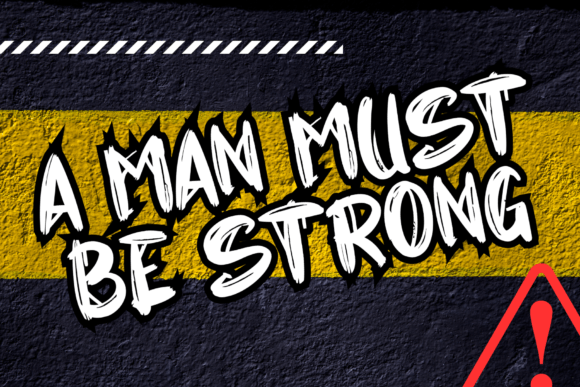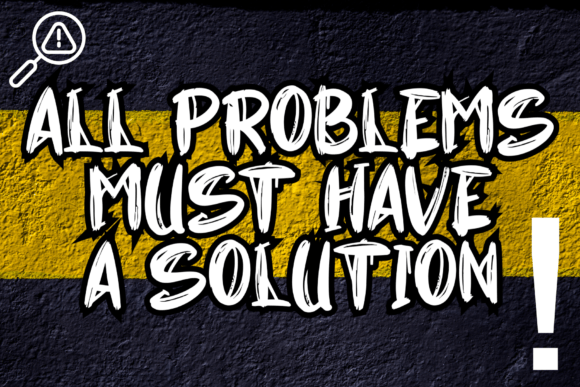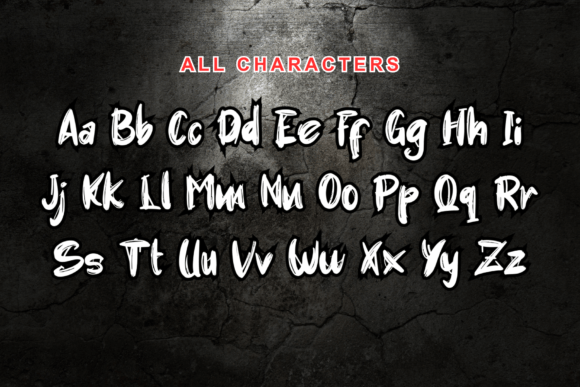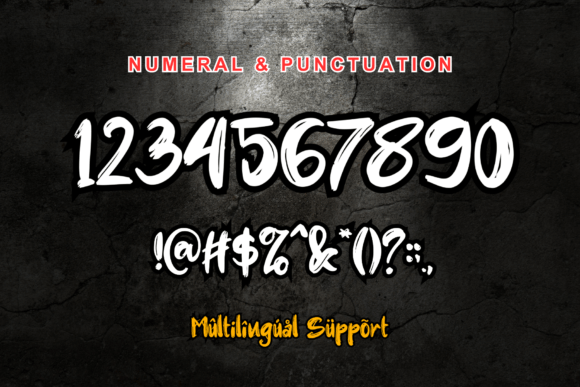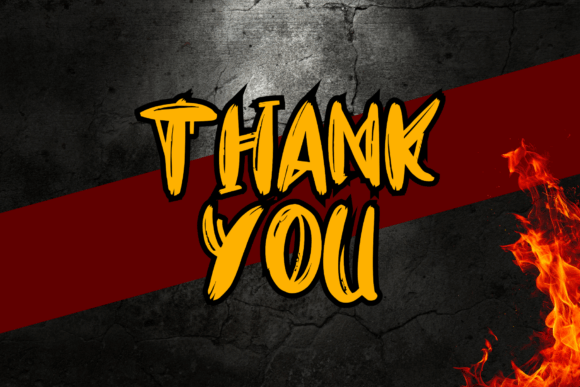
Introduction to Danger Island Font Font
Fonts play a crucial role in design, and the Danger Island Font font is a typeface that brings both character and versatility to any project. Whether you’re working on a branding project, a website, or a print design, the Danger Island Font font offers a unique style that can elevate your work.
Danger Island fonts are perfect for designs that aim to convey a creative, casual, and personal touch.
Using it can give your design a more dynamic and natural look that is perfect for a wide range of design projects This characteristic makes it an ideal choice for a wide range of designs, including logos, posters, greeting cards, and mockup t-shirts.
Key Features of Danger Island Font Font
Why Choose Danger Island Font Font?
The Danger Island Font font is more than just a typeface – it’s a design tool that helps you communicate your message with style and clarity. Its unique character set and versatile design make it suitable for a wide range of applications, from elegant invitations to bold headlines.
With its carefully crafted letterforms and balanced proportions, the Danger Island Font font ensures readability and visual appeal across all mediums.
What makes Danger Island Font font special?
The Danger Island Font font stands out with its unique design, exceptional readability, and versatility across various design applications.